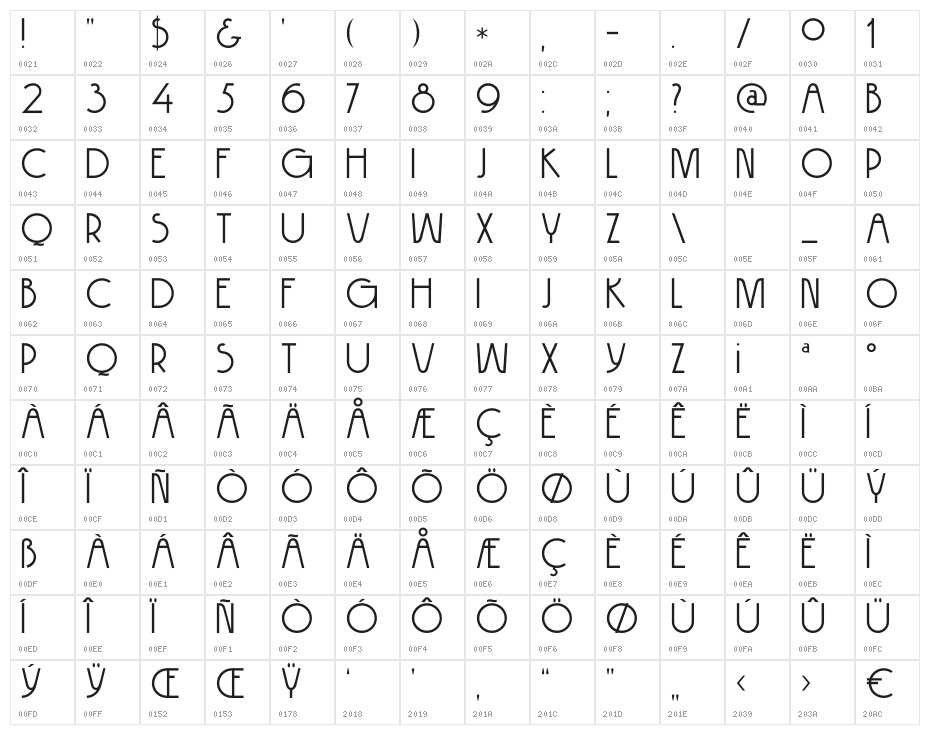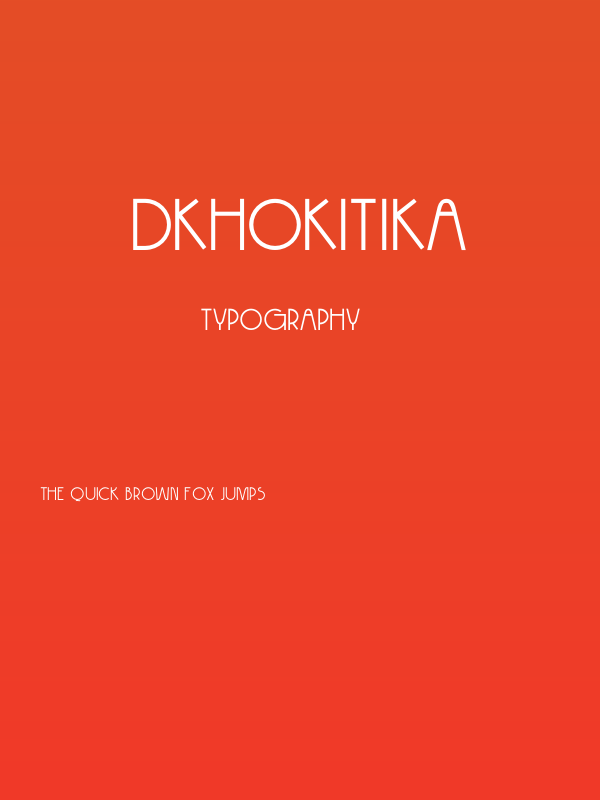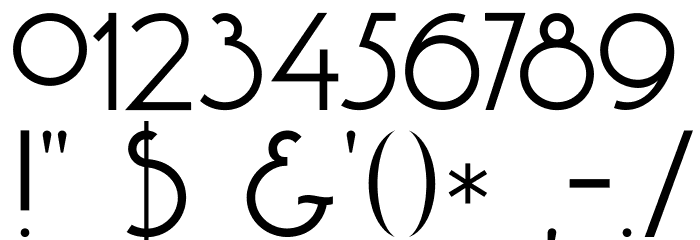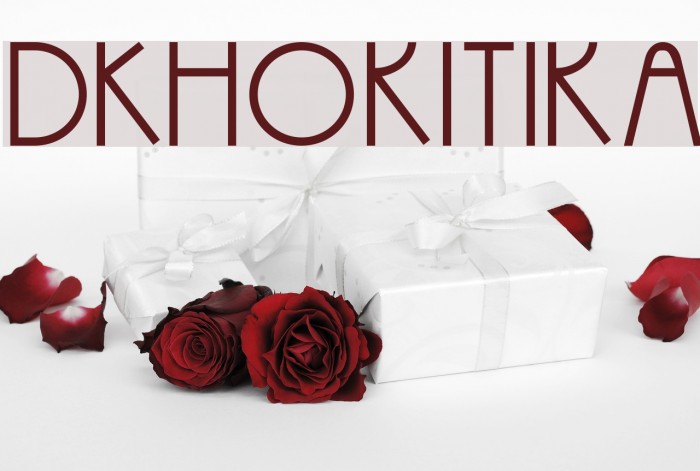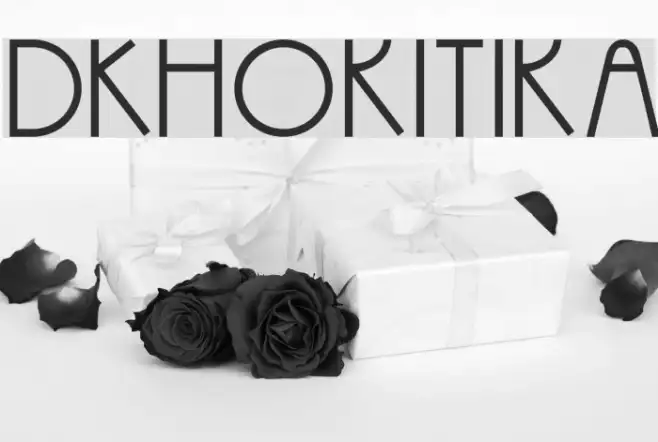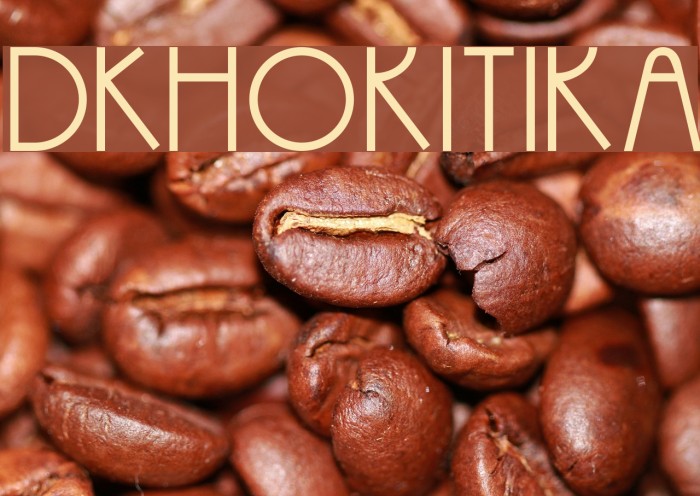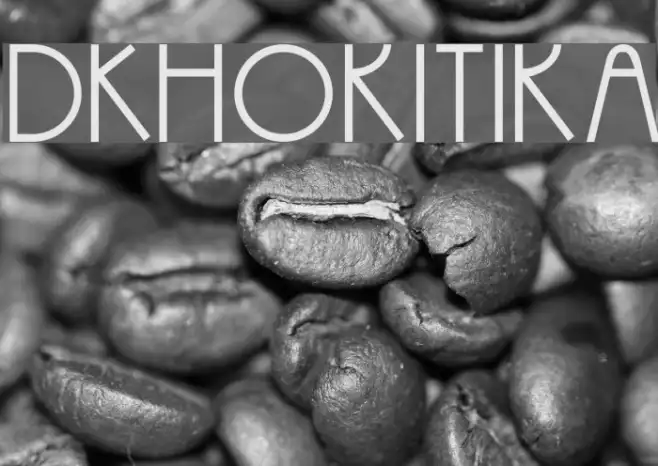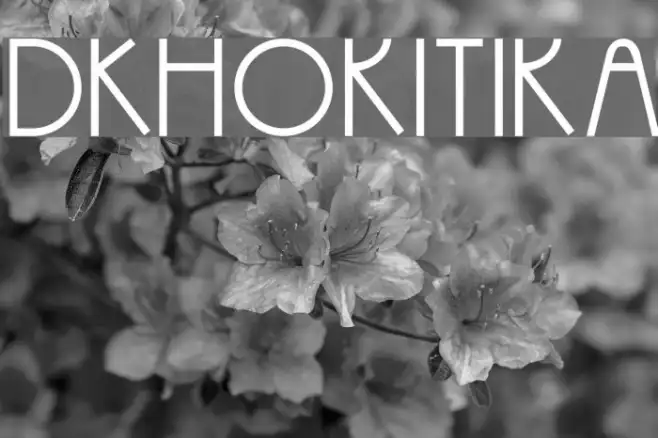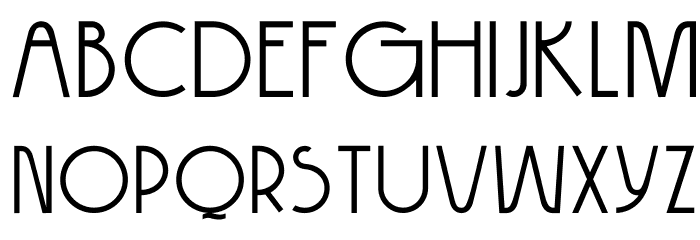
DKHokitika Font
DKHokitika Description
This font exhibits a sleek, geometric style with clean lines and a modern aesthetic. The characters are well-balanced, featuring a uniform stroke width that gives it a cohesive appearance. The uppercase letters are tall and elegant, while the lowercase letters maintain a consistent height, contributing to a harmonious look. The numerals are distinct and easy to read, complementing the overall design. Special characters are crafted with precision, adding to the font's versatility. Its simplicity and clarity make it suitable for a wide range of applications.
| Proposed Projects | Ideal for branding, editorial design, advertising, and digital interfaces. |